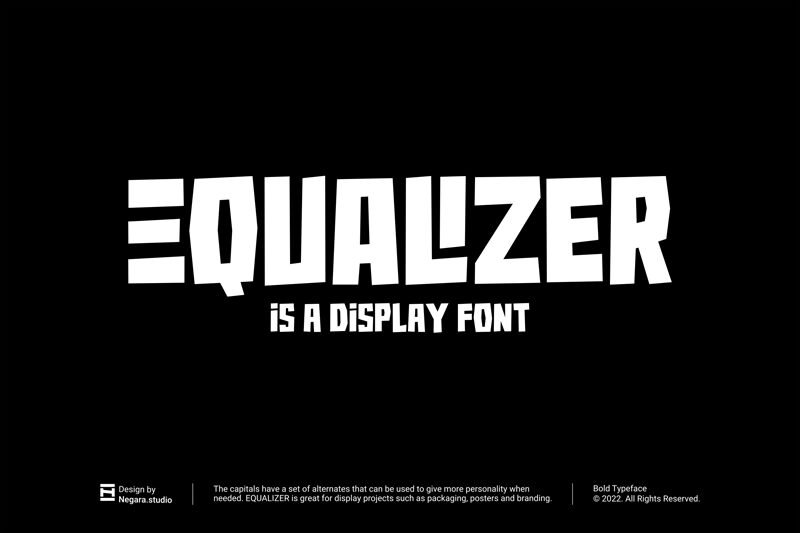
Equalizer font, designed by Anugerah Negara of Negara Studio, stands out with its bold presence and striking condensed form. This display typeface commands attention, featuring sharp lines that exude energy and modernity. The aesthetic appeal lies in its ability to convey strength while maintaining a sleek appearance, making it perfect for impactful headlines or branding elements.
The character of Equalizer is enhanced by its unique structure that balances visual weight without overwhelming the viewer. Ideal for use in music festival posters, tech advertisements, or dynamic sports branding, this font seamlessly integrates into any design seeking a contemporary edge. Its distinctive style ensures it captures the essence of creativity while remaining versatile across various applications.